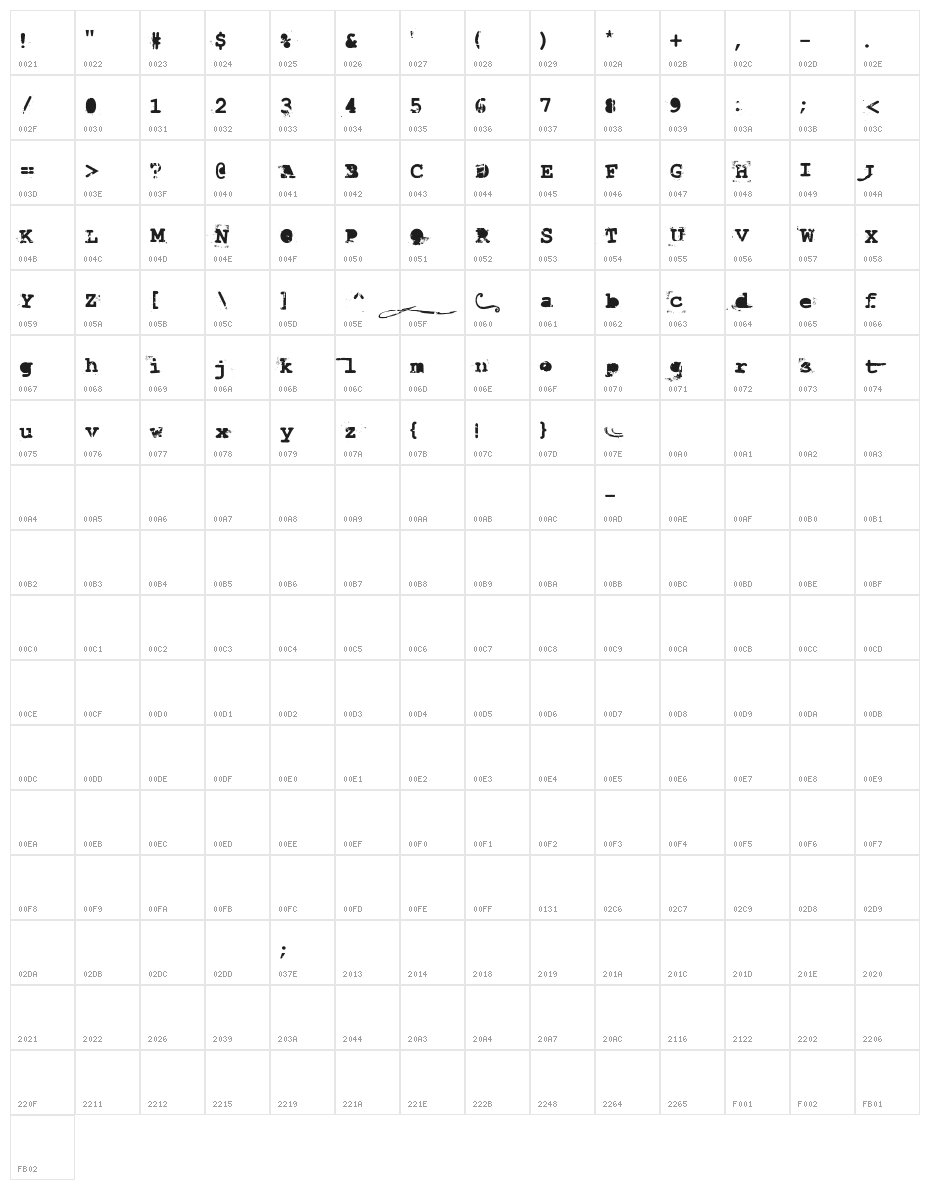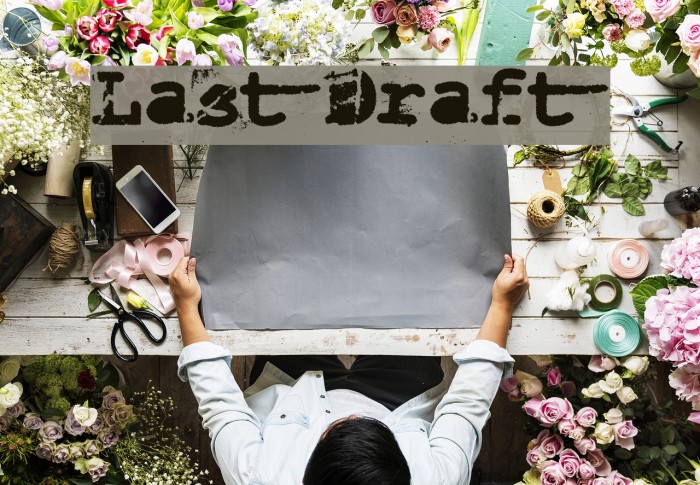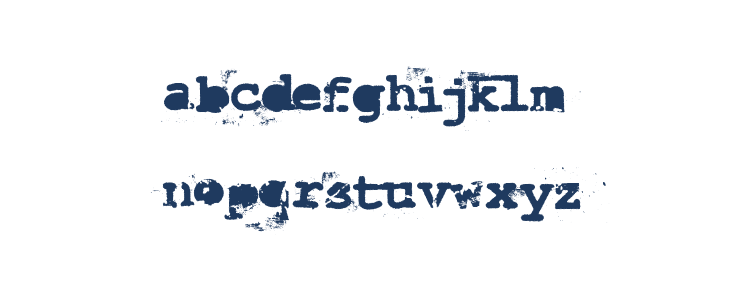
Last Draft Font
Last Draft Description
This font features a distressed, grunge style with a worn and textured appearance, reminiscent of typewriter fonts with a vintage twist. The characters are bold and have a rough, uneven texture that gives them a unique, aged look. The uppercase and lowercase letters maintain a consistent style, with slightly exaggerated serifs and a bold weight. The numbers and special characters follow the same distressed theme, adding to the overall cohesive aesthetic. This font is ideal for projects that require a rugged, retro feel, such as posters, album covers, or themed event invitations.
| Overall Style | Vintage, Grunge |
| Use Case | Headlines, Posters, Logos |
| Proposed Projects | Ideal for vintage-themed posters, album covers, event invitations, and graphic design projects requiring a rugged look. |